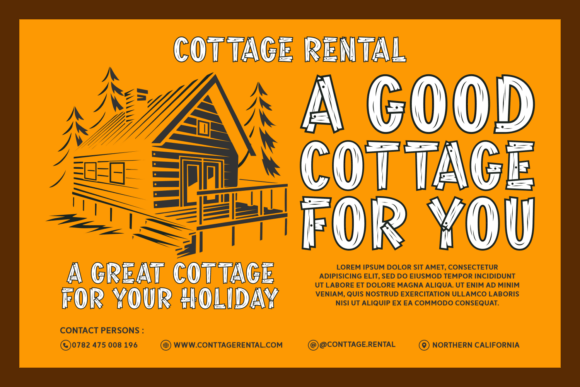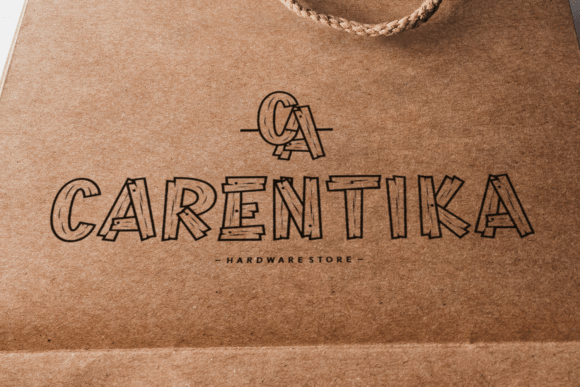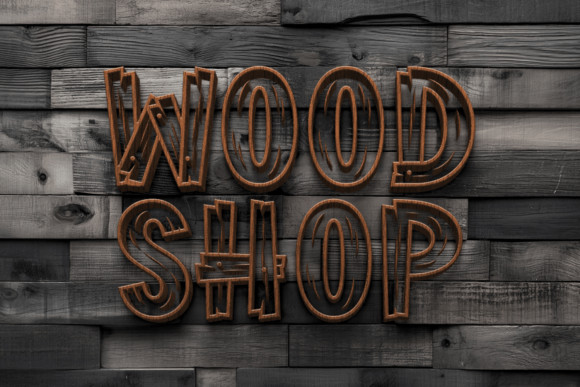
Unleashing the Raw Power of Lumber Force Font
Imagine yourself standing in a bustling woodworking shop, surrounded by the sweet scent of freshly cut wood and the sound of hammers striking an anvil. As you scan the room, your eyes land on a beautifully crafted wooden sign bearing the name of the shop. The letters seem to leap off the surface, their rugged texture and three-dimensional quality drawing you in like a magnet. This is the essence of the Lumber Force Font, a high-quality design resource that embodies the spirit of raw timber.
For designers seeking a unique typographic solution, Lumber Force Font is a treasure trove of creative possibilities. Its coarse, textured outlines and handcrafted essence make it an ideal choice for projects that demand a genuine, homespun allure. Whether you’re working on a rustic decor project or an outdoor enterprise, this font is sure to add a touch of authenticity to your design.
Discover the Enduring Appeal of Lumber Force Font
What sets Lumber Force Font apart from other fonts is its ability to evoke a sense of history and tradition. With its transparent background and extensive multilingual support, this font is perfect for designers who want to add a touch of sophistication to their creative project. Plus, with a free download available, you can get started right away and experience the raw power of Lumber Force Font for yourself.
Key Features of Lumber Force Font
- High-quality design resource suitable for creative projects, offering a unique and rugged aesthetic.
- Designed in a distressed, vintage style, perfect for adding a weathered look to your creative project.
Honest Review: Lumber Force Font
I recently stumbled upon the Lumber Force Font, and I have to say it’s a solid addition to any designer’s arsenal. As a design resource, it offers a lot of potential for creative projects.
What works well for the Lumber Force Font is its high-quality design, which makes it perfect for use in various contexts. The font’s modern and rustic feel is well-balanced, allowing it to be versatile and adaptable to different creative projects.
- ✨ Versatile and adaptable
- ✨ Suitable for various creative projects
One thing to note is that the font does not come with a transparent background option, which might be a limitation for some designers who need to overlay text on images or videos.
- ⚠️ No transparent background option
Overall, I’m impressed with the Lumber Force Font. It’s a free download that’s definitely worth checking out, especially for designers who are looking for a high-quality, unique font to add some flair to their creative projects.
Tips for Getting the Most Out of Lumber Force Font
For optimal results, use Lumber Force Font in conjunction with a high-quality image or background to create a visually appealing design.
Experiment with different font sizes, colors, and styles to find the perfect combination for your creative project.
Common Use Cases for Lumber Force Font
Lumber Force Font is ideal for use in a variety of creative projects, including:
Logo design
Brochure design
Business card design
Infographic design